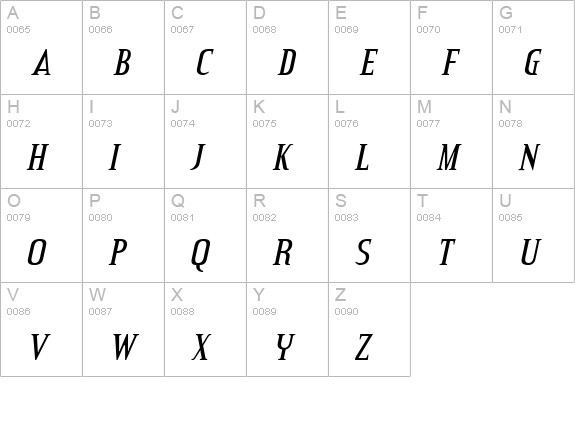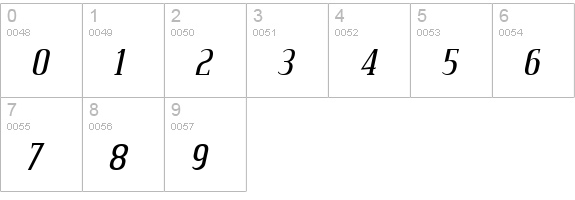
Credit Valley Italic is a distinctive, italic variant in the Credit typeface family \xE2\x80\x94 well suited to design and typography projects.
Introducing Credit Valley Italic font, a sleek and sophisticated typeface that exudes elegance and modernity. With its slanted design and graceful curves, Credit Valley Italic is perfect for adding a touch of style to any project. Whether you're designing a logo, creating a poster, or crafting a website, this font will elevate your work to the next level. The best part? Credit Valley Italic is completely free to download at FontsMarket.com! Now you can access this stunning font without breaking the bank. So why wait? Enhance your designs with Credit Valley Italic today and make a lasting impression with its unique charm and versatility.